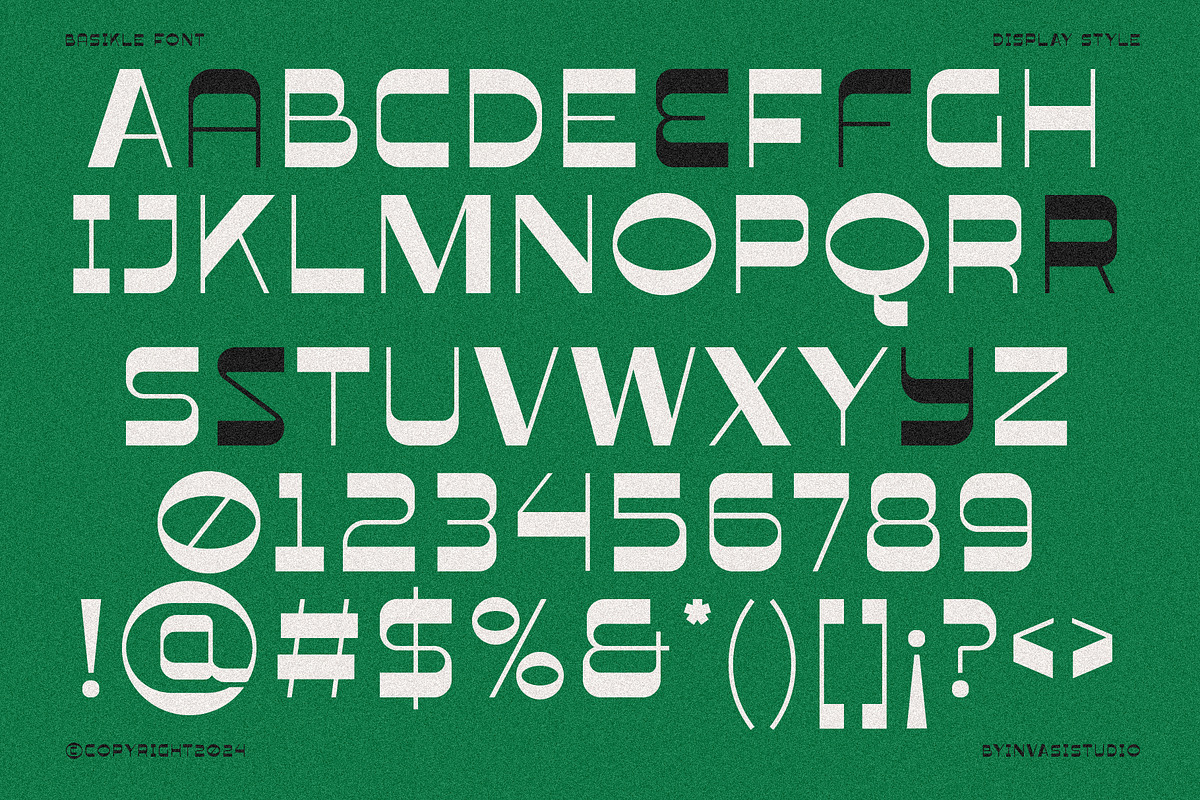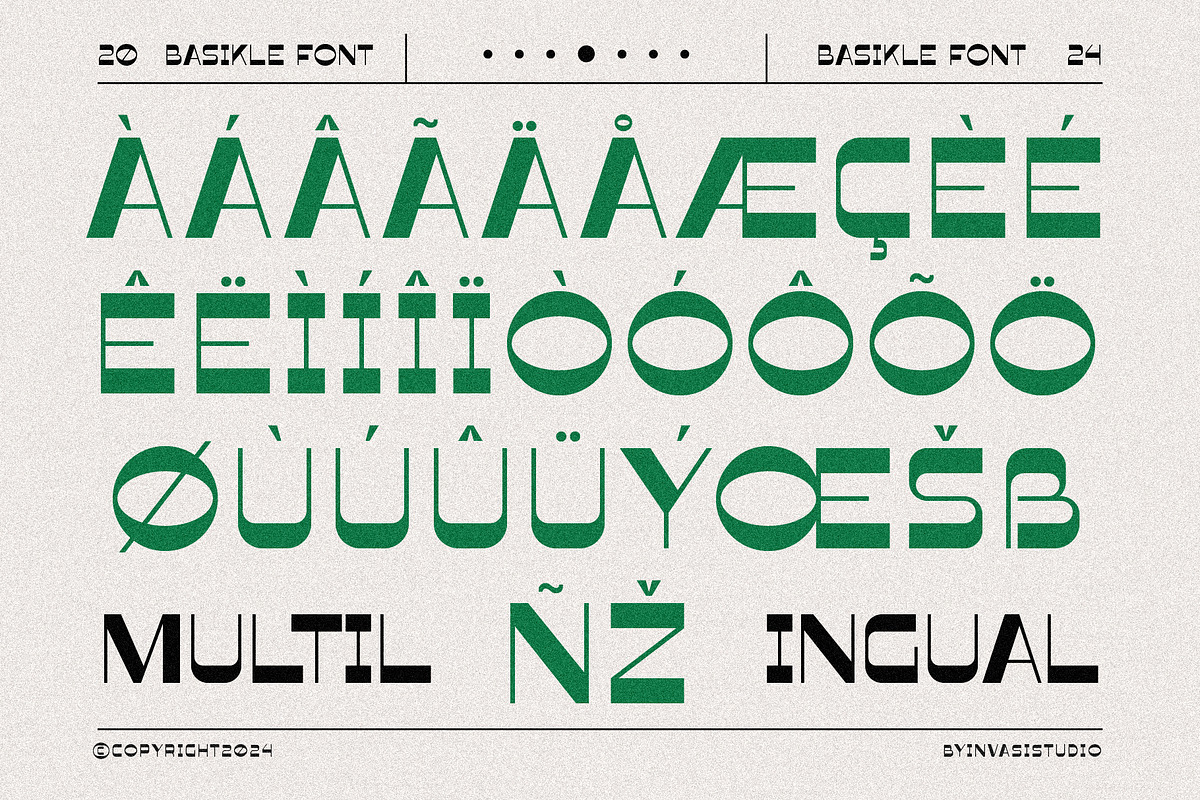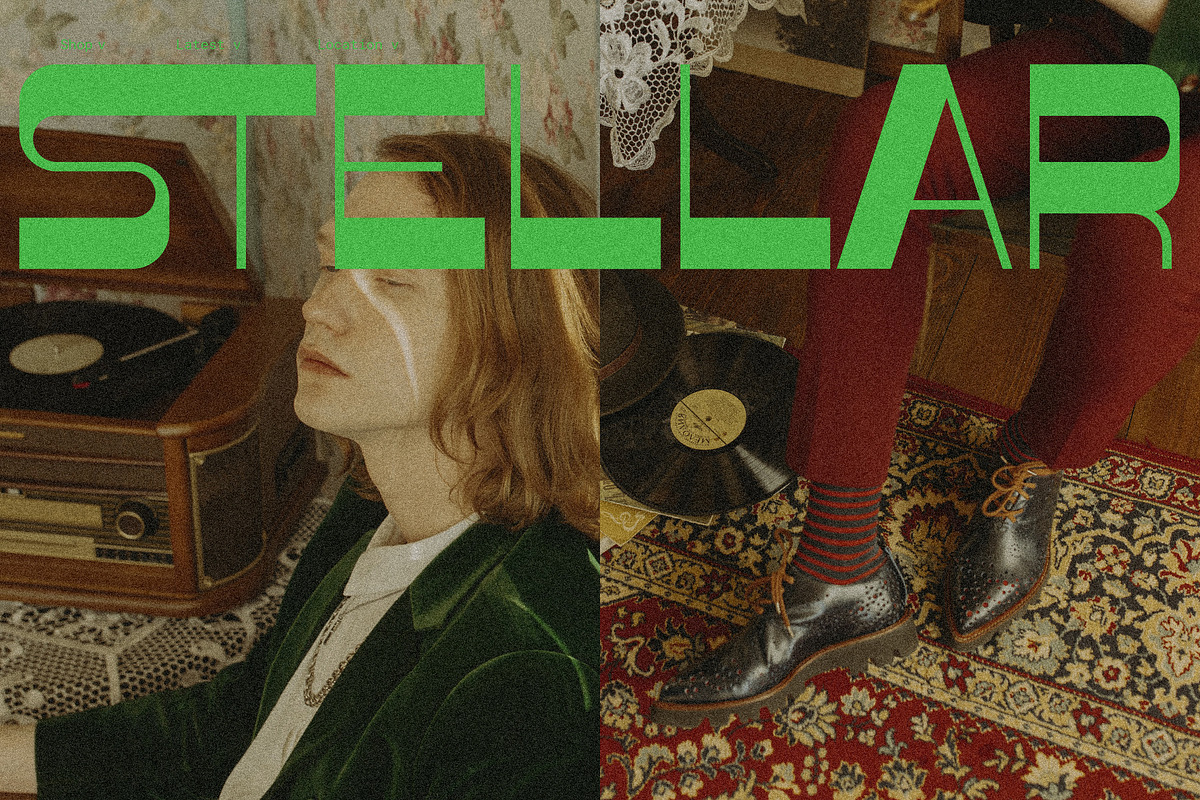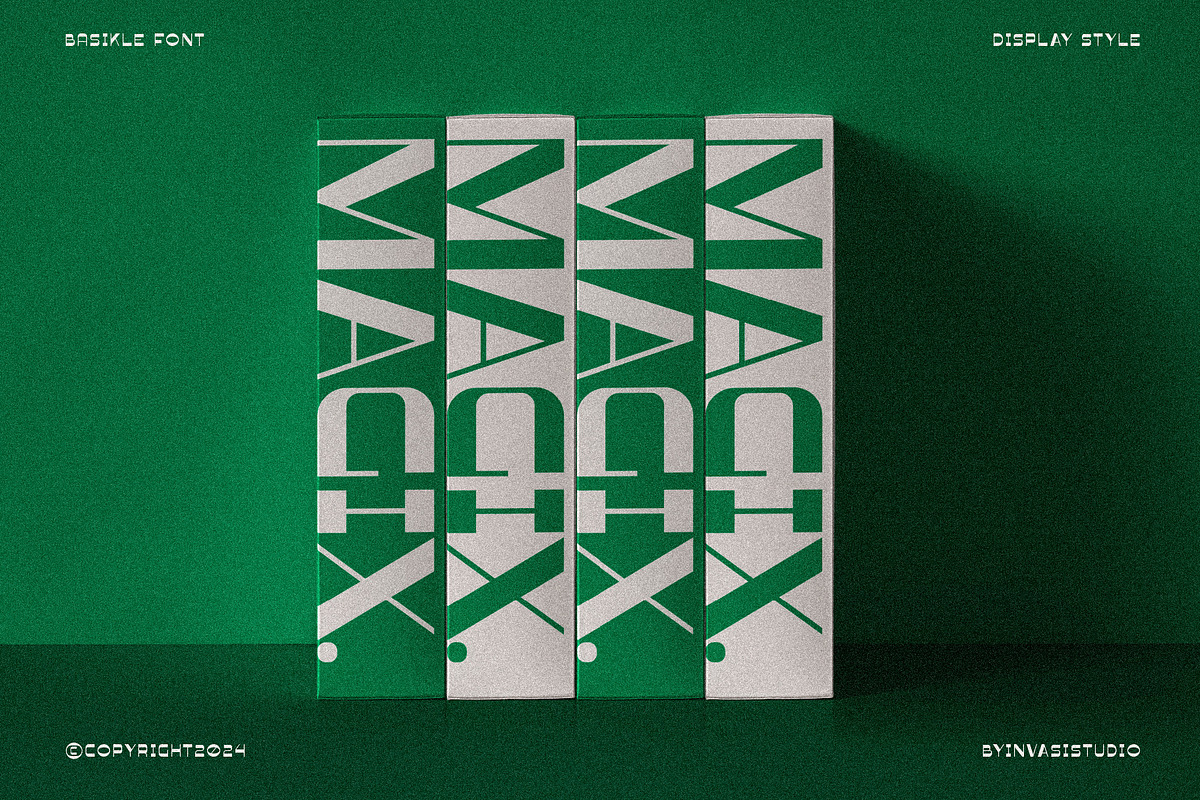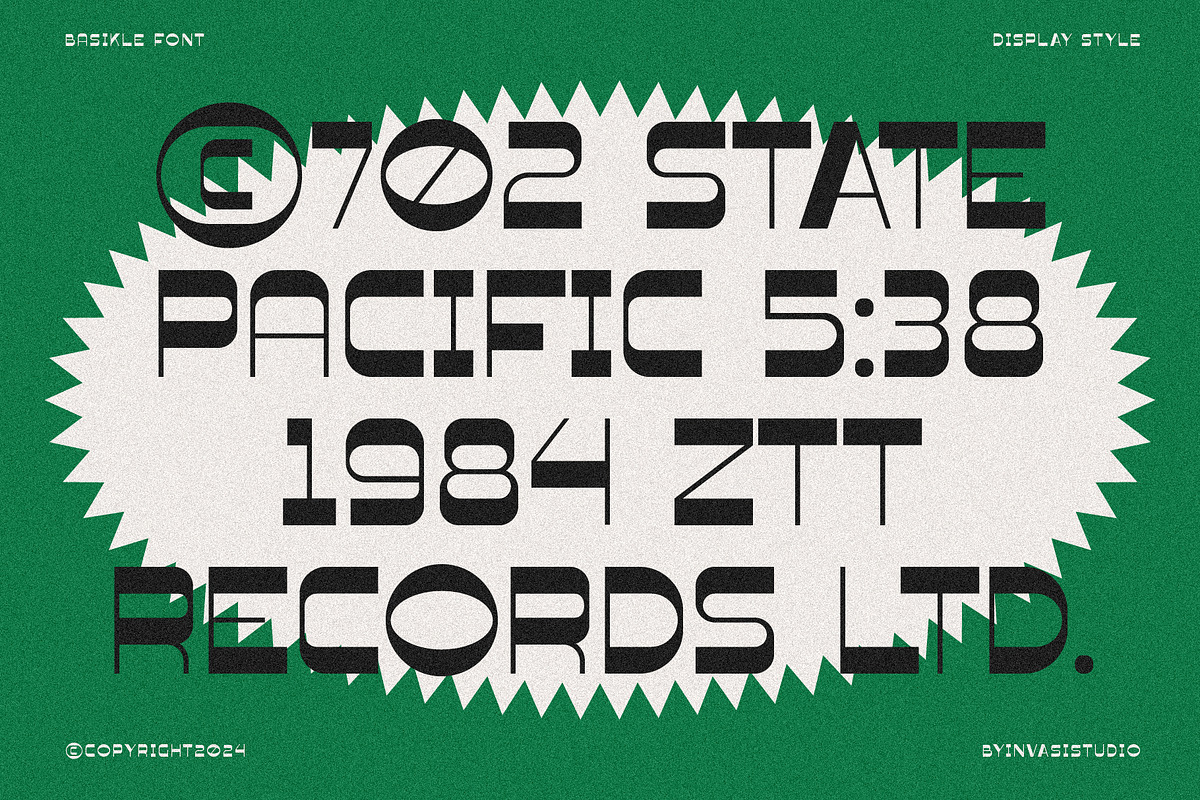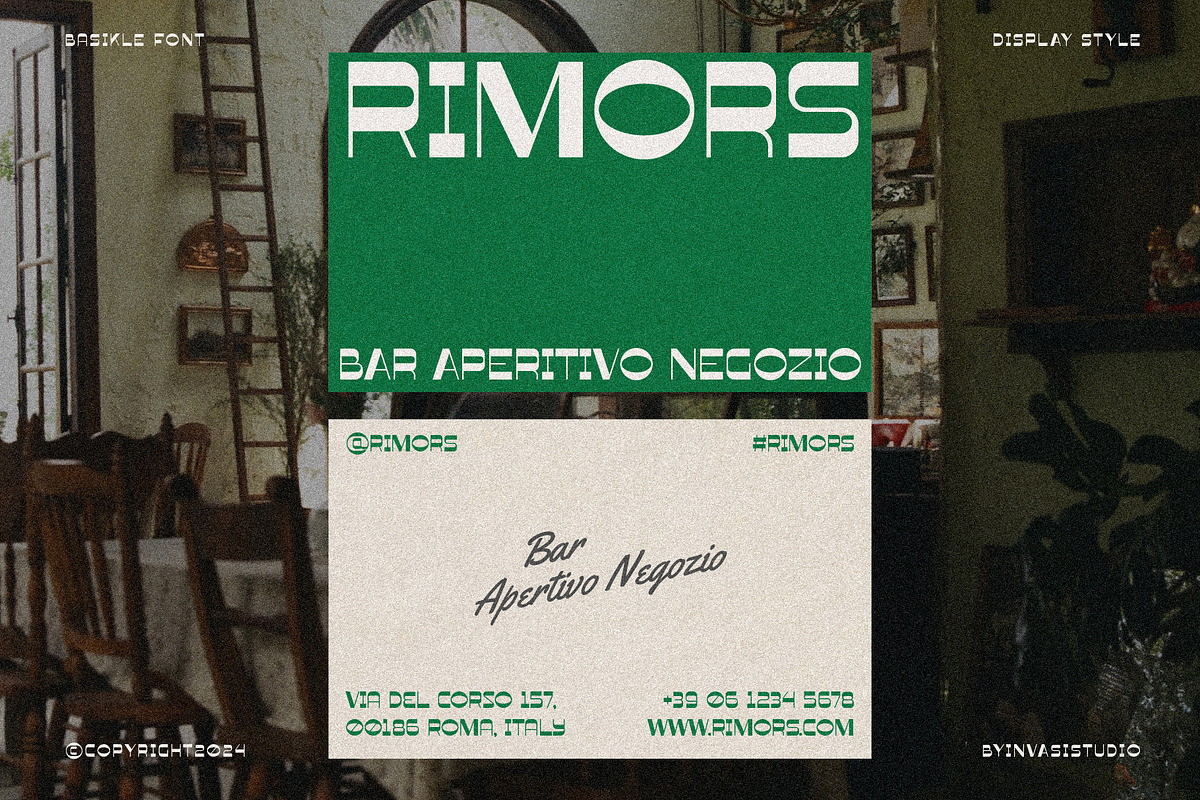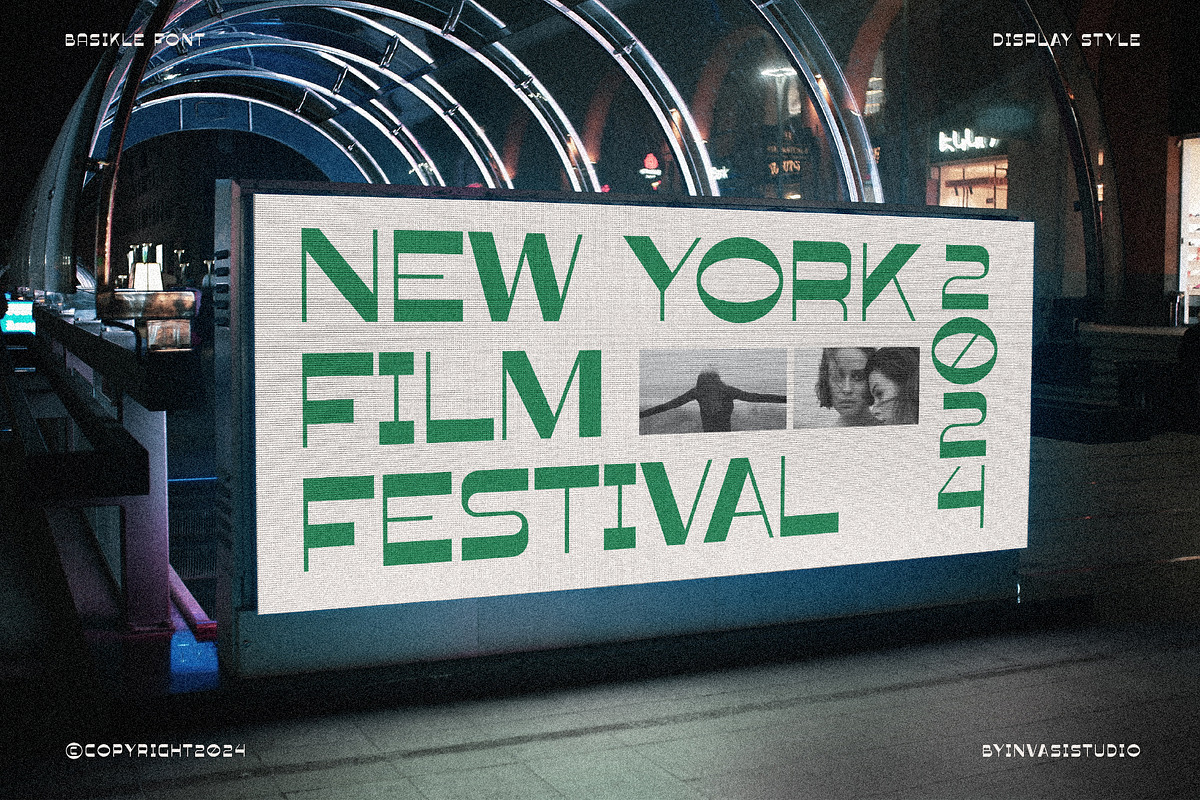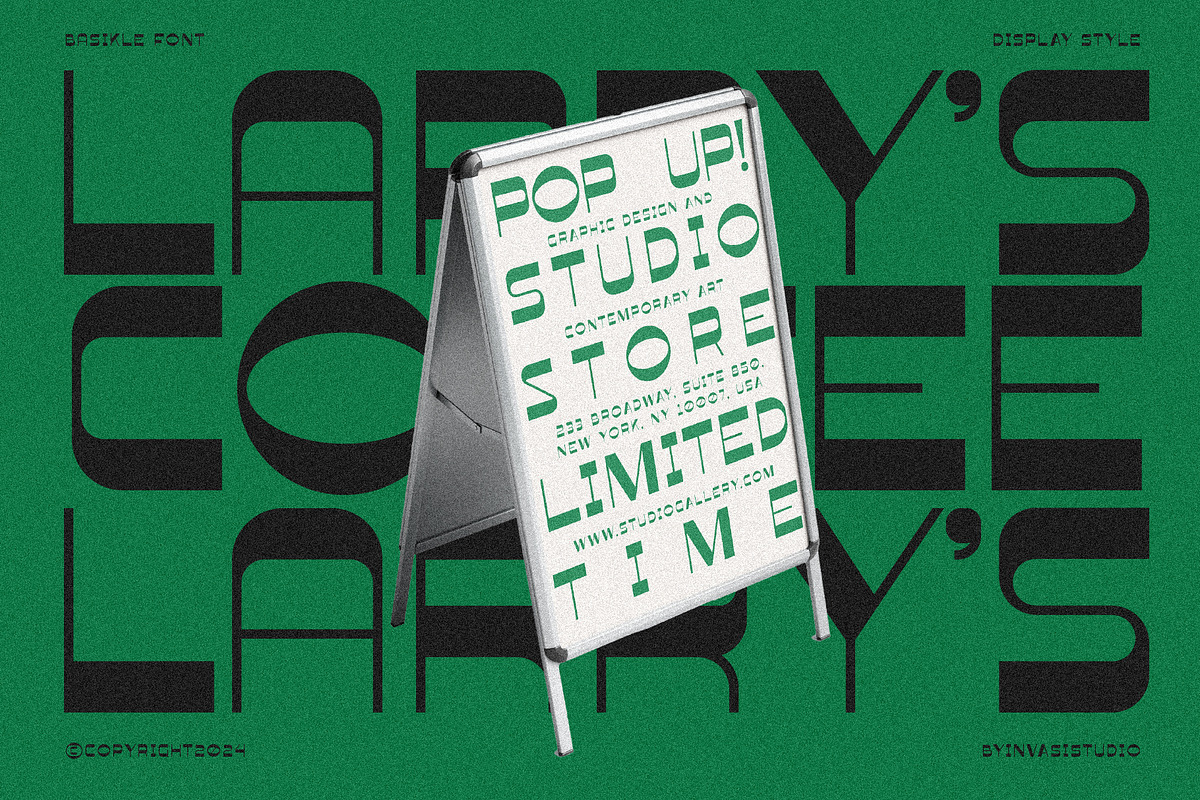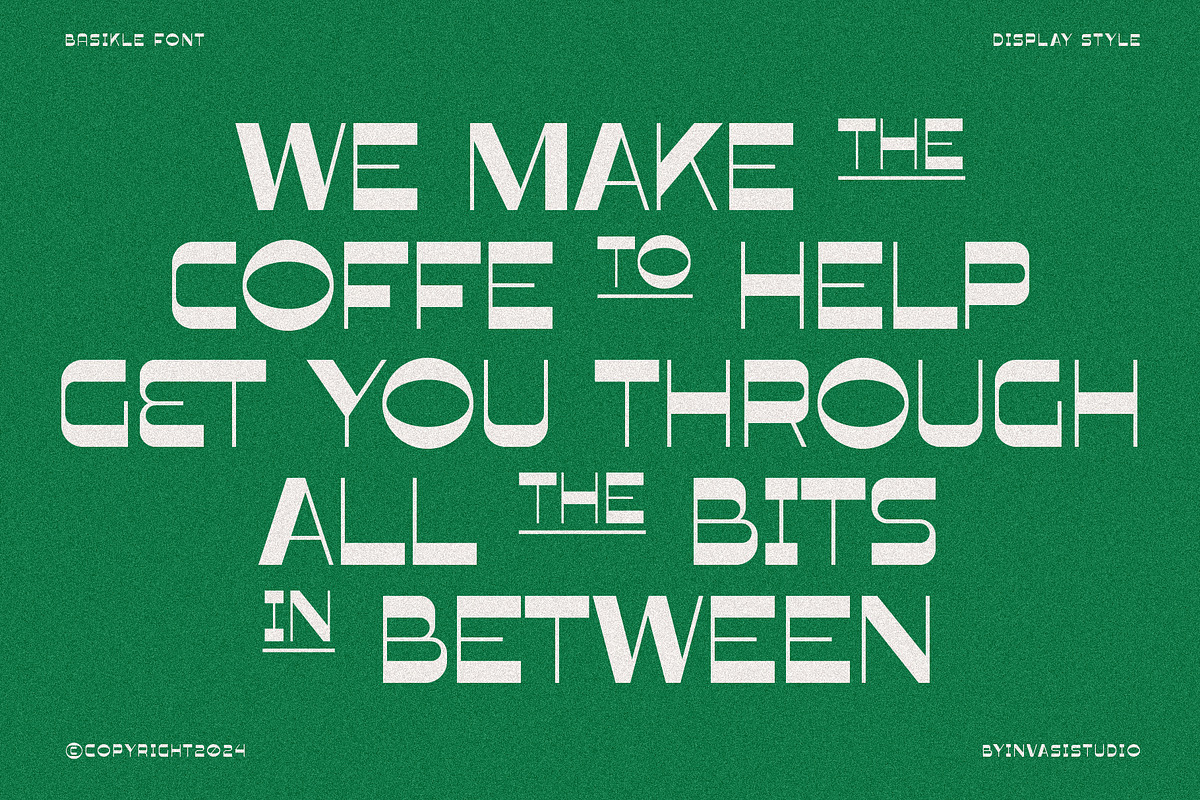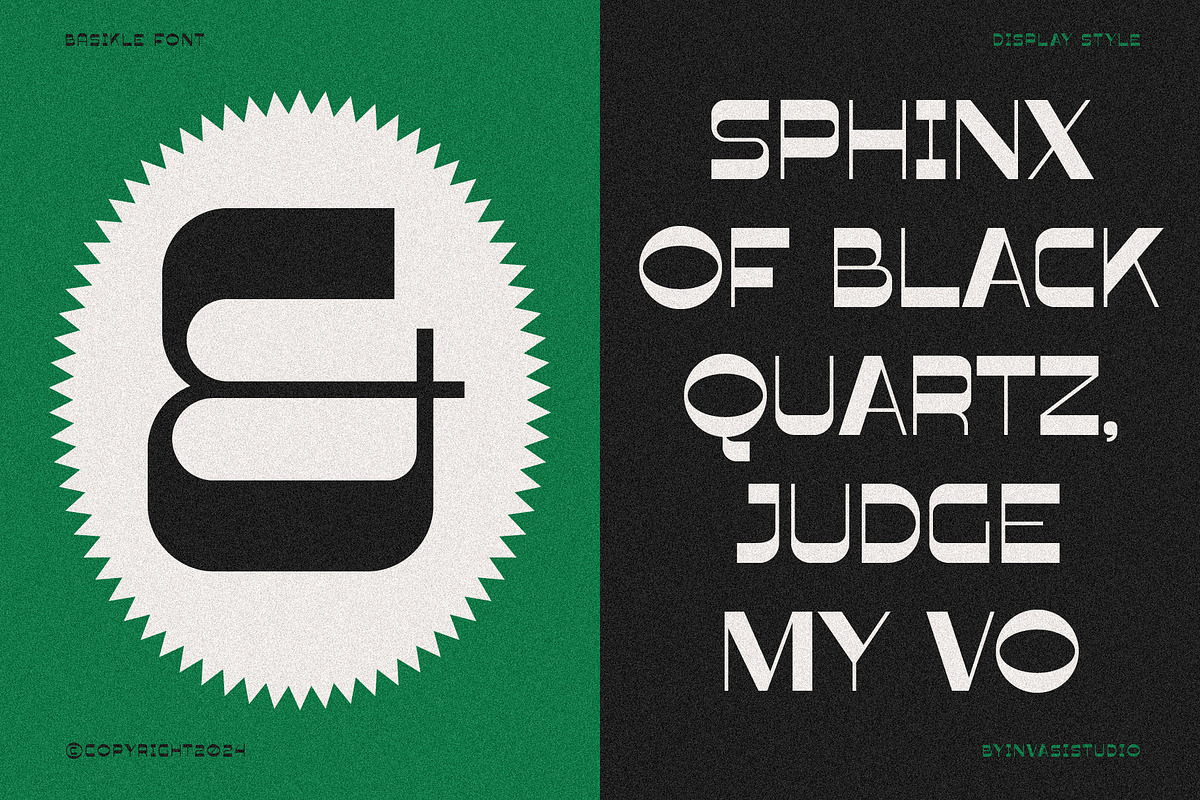
Basikle - Retro Reverse Contrast
Introducing Basikle, a vintage uppercase reverse contrast font that embodies bold and strong character. With its retro vintage vibes, Basikle ensures that every style crafted with this font is both striking and carefully curated.
This font features stylistic alternates and multilingual Latin support, making it versatile for a wide range of projects. Ideal for headlines, flyers, posters, greeting cards, product packaging, book covers, logotypes, and album covers, Basikle is your go-to choice for creating impactful and memorable designs.
- Multilanguage Supports 60+ Latin-based languages